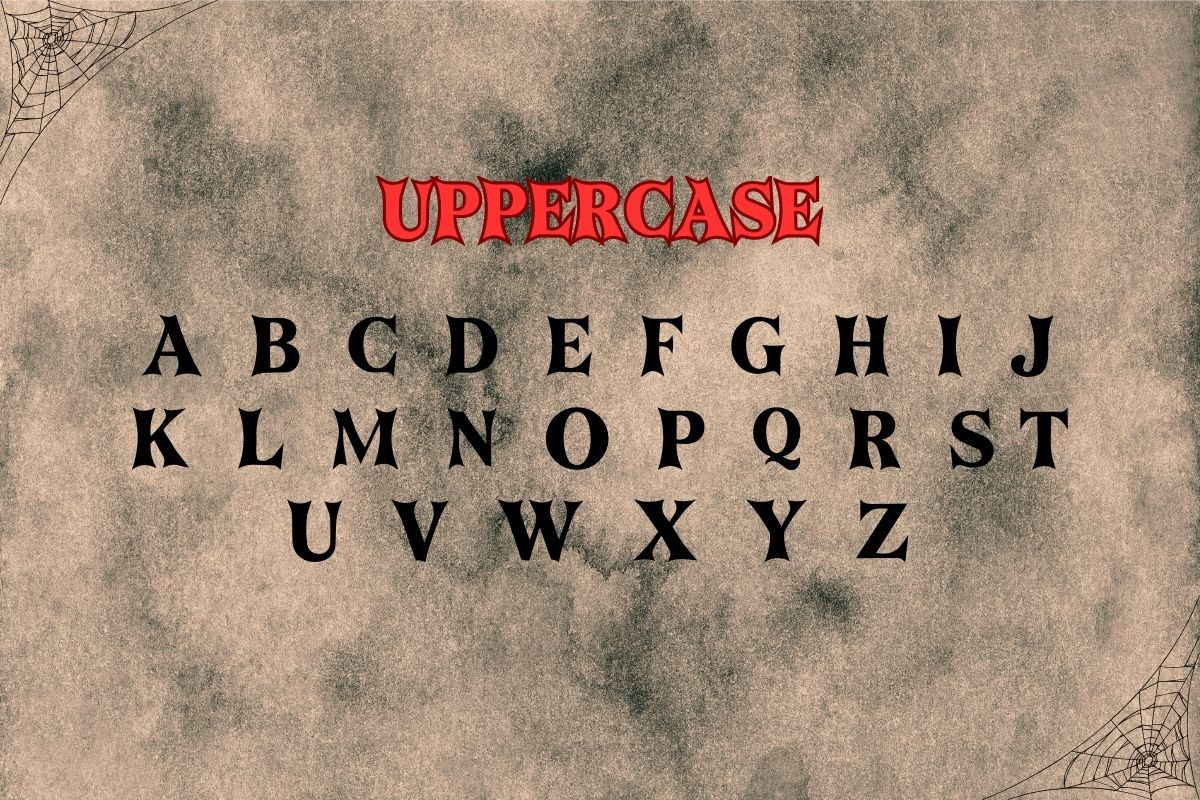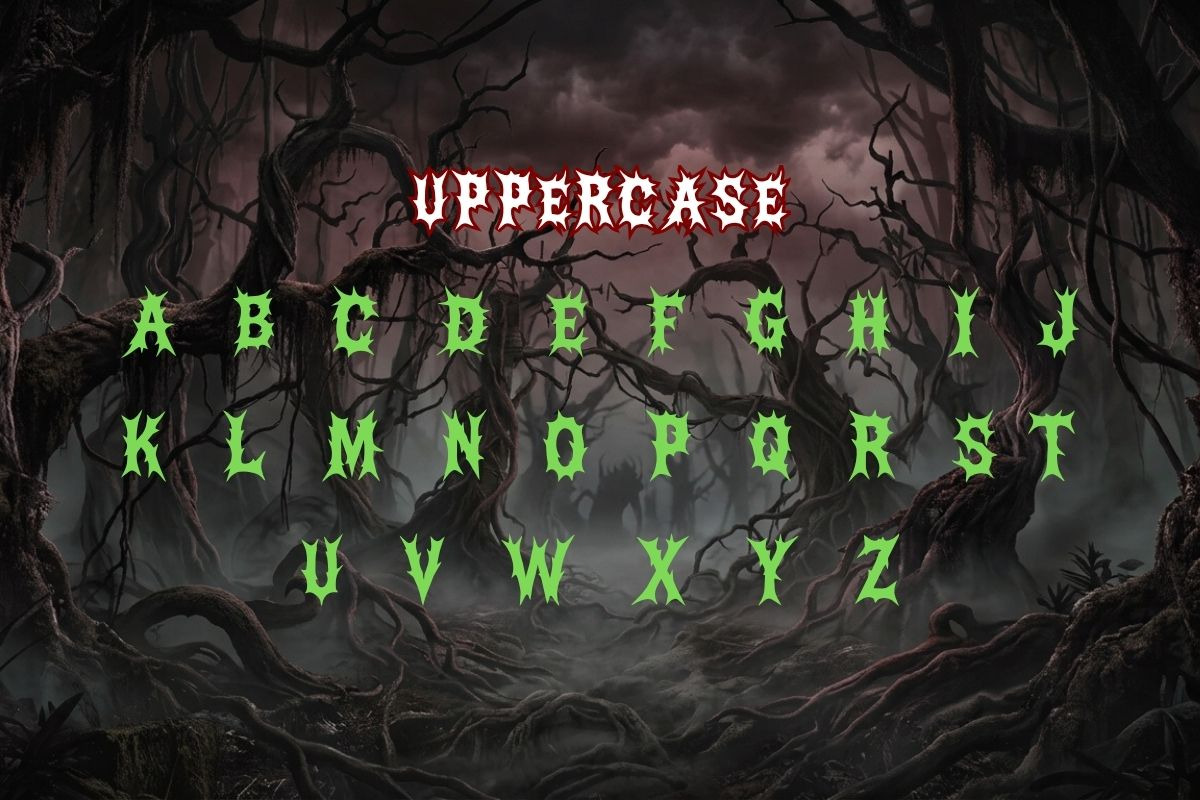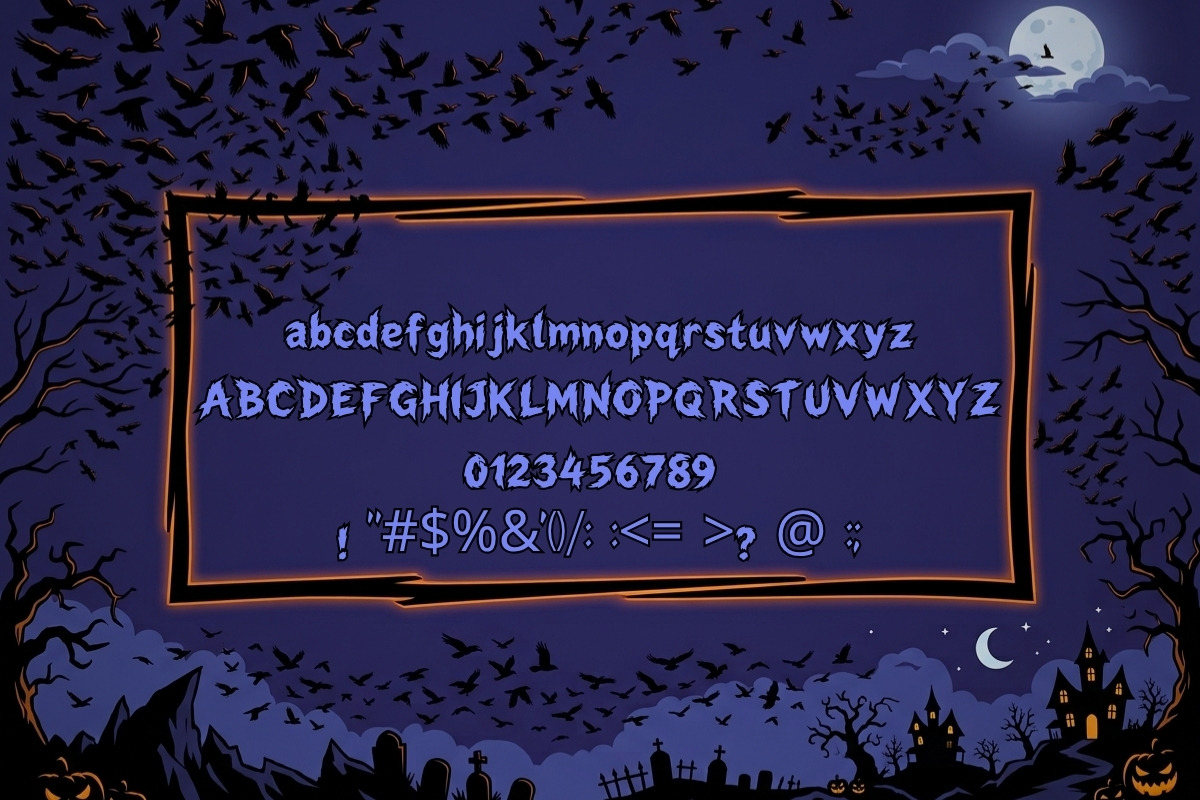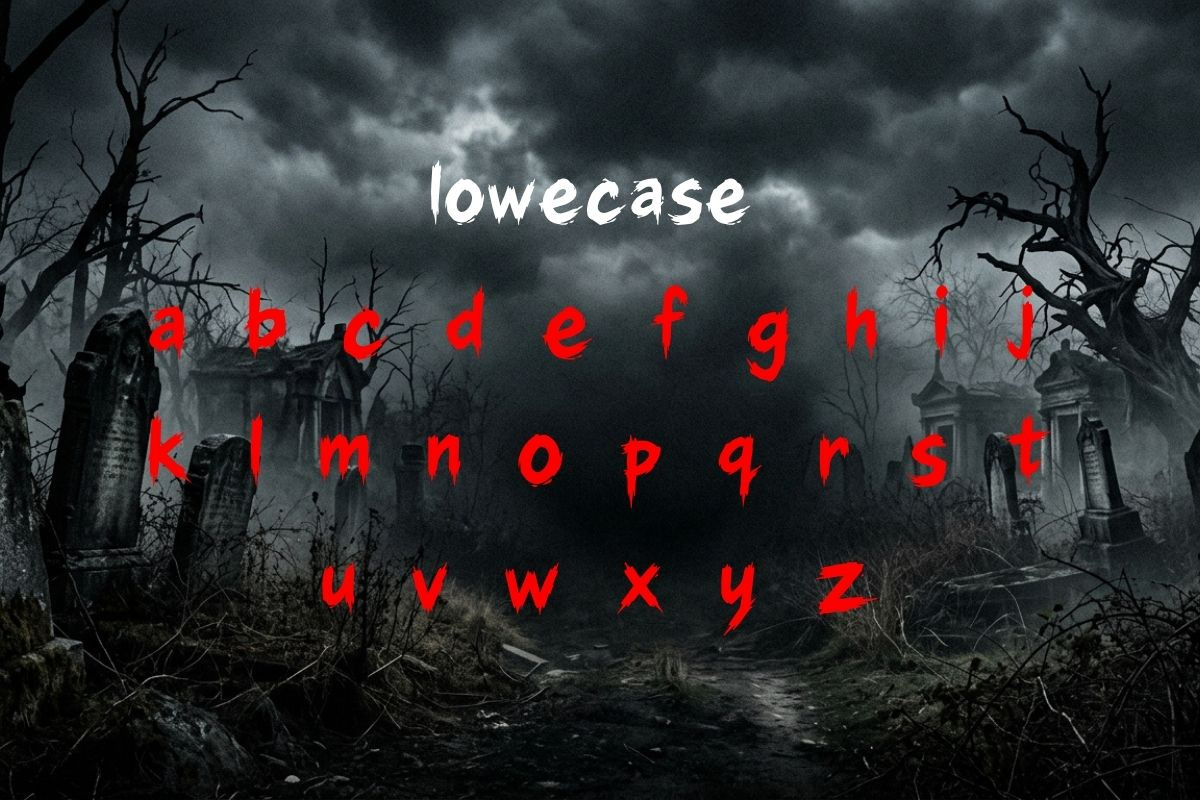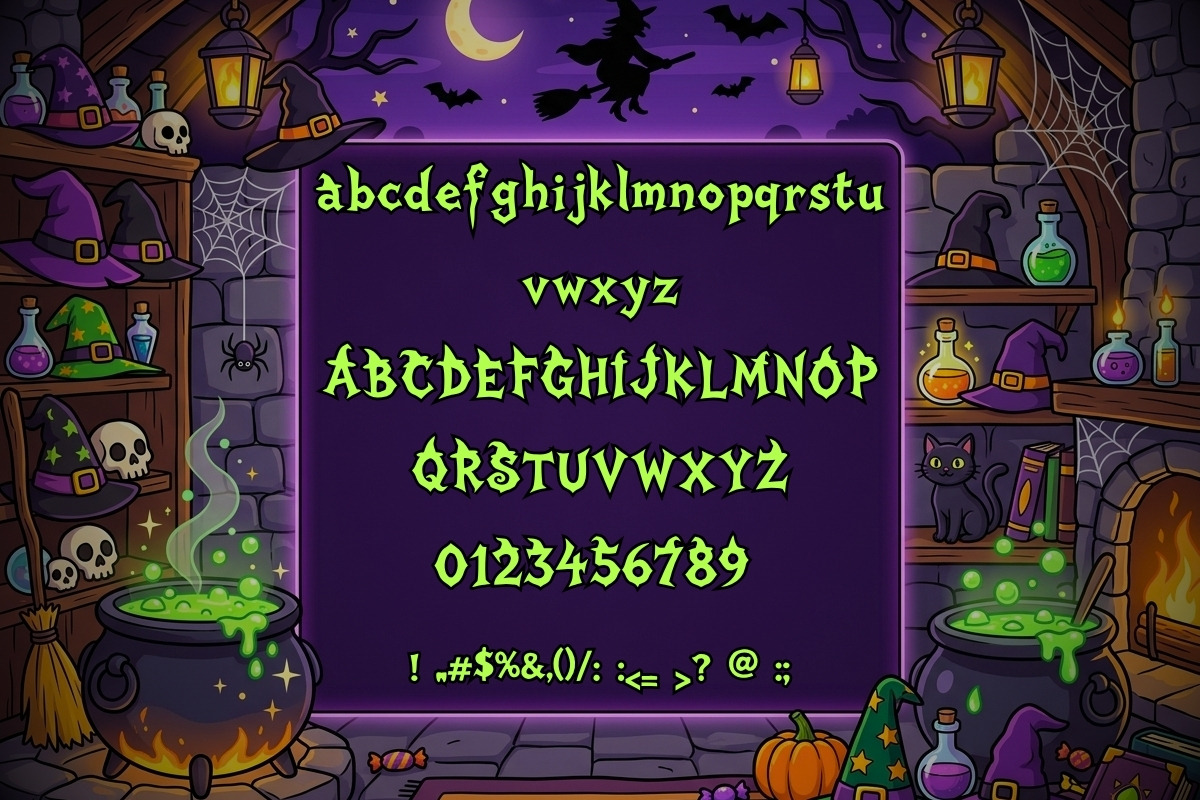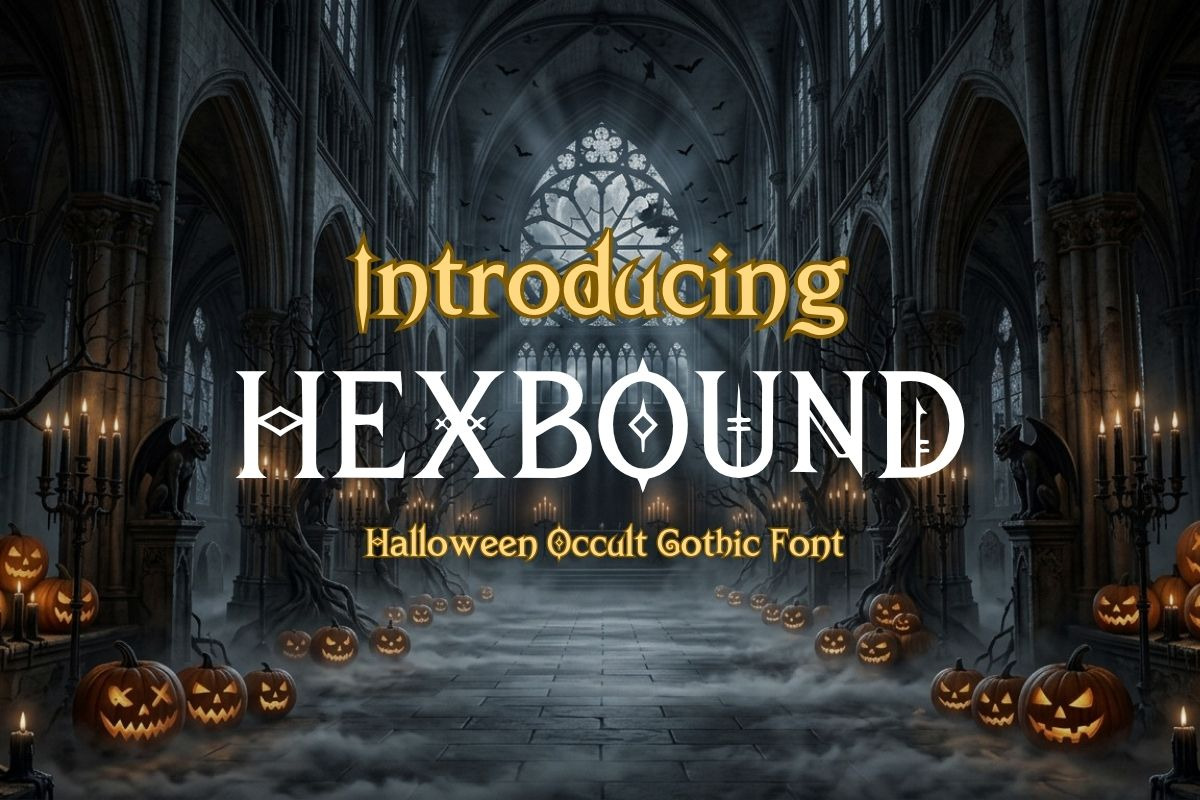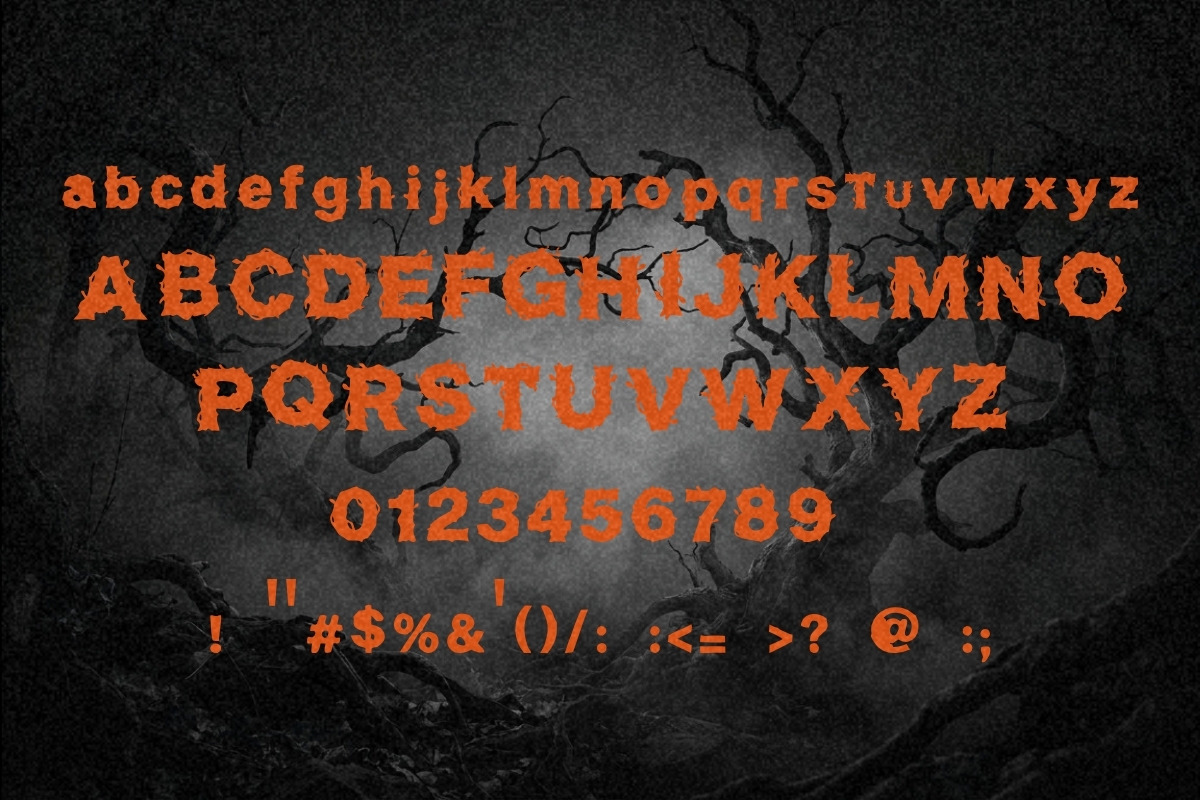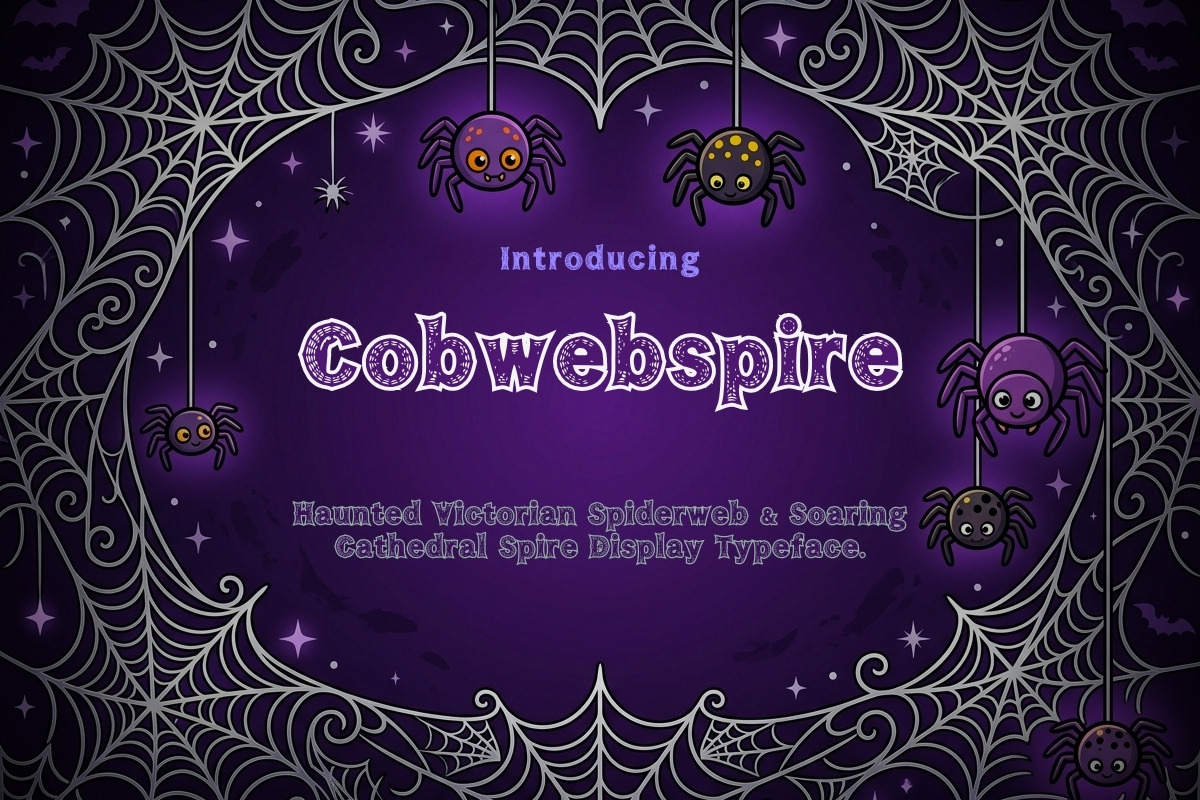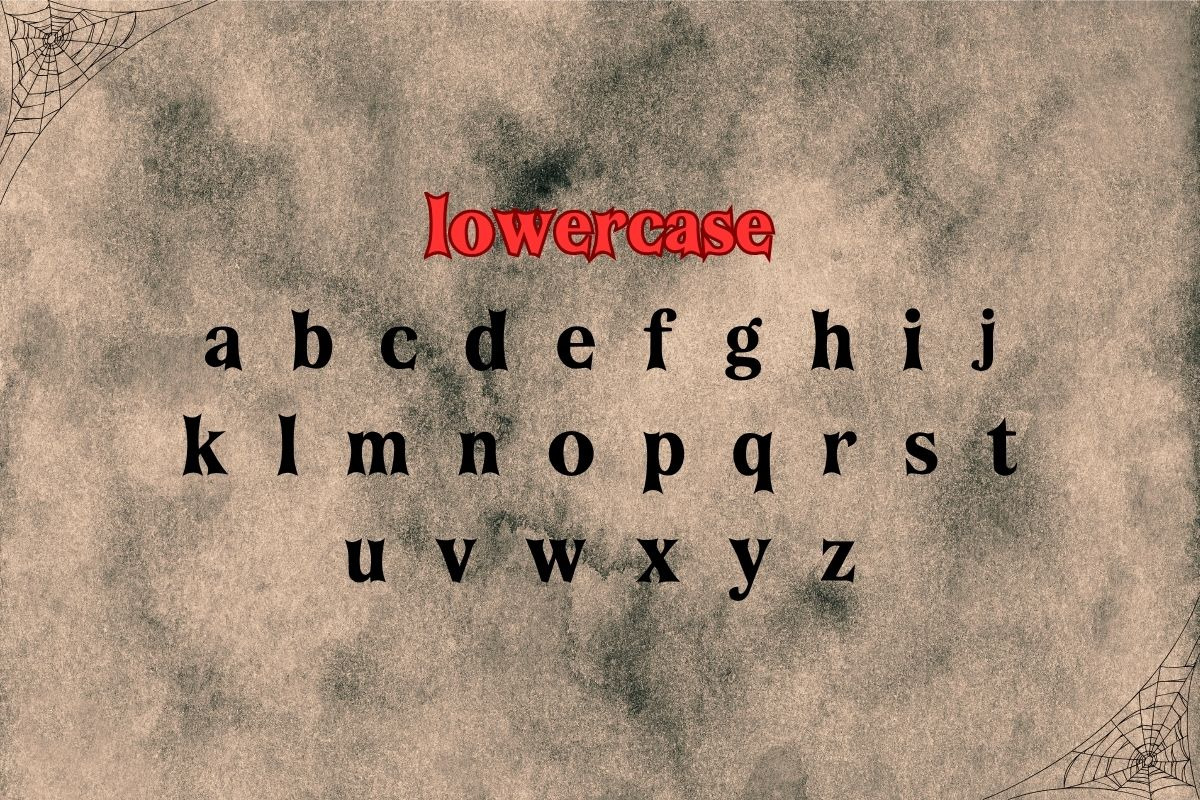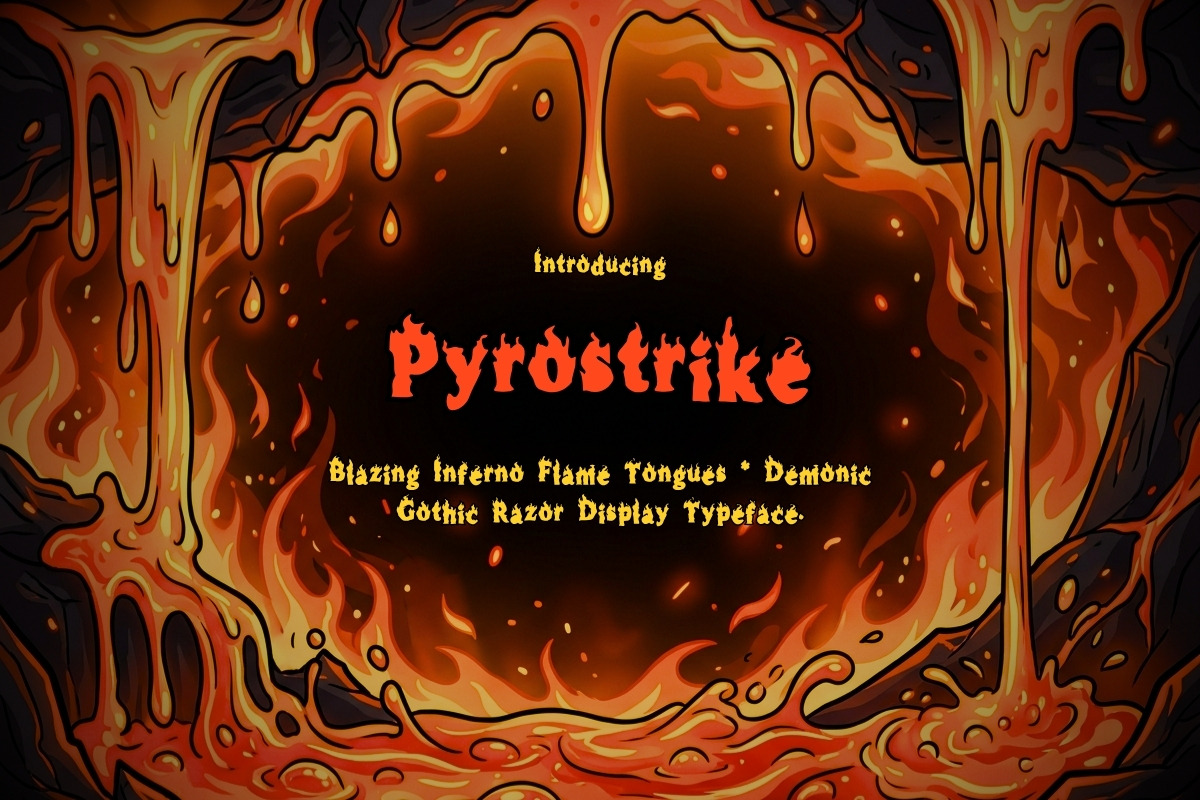
18 Spooky Horror Font Bundle
Prepare for the spooky season with the definitive 18 Spooky Horror Font Bundle — an expansive, mastercrafted arsenal of 18 distinct horror and gothic typefaces designed to dominate every Halloween campaign, horror game, metal album, and dark apparel drop.
Instead of generic novelty fonts that all look alike, this mega bundle delivers 18 completely different horror aesthetics: Victorian spiderwebs, predatory vampire batwings, barbed briars, gnarled haunted timber, demonic talons, melting toxic slime, death metal spikes, dark sorcery runes, and visceral slasher brushstrokes.
Whether you're creating best-selling Halloween merchandise with your Cricut/Silhouette, designing a horror film poster, branding an escape room, or illustrating haunted book covers, this collection gives you the exact typographic weapon you need.
What Makes This 18-Font Bundle Exceptional:
**Unmatched Variety: **18 completely distinct horror aesthetics covering every major spooky theme (Gothic, Slime, Vampire, Metal, Occult, Forest, Slasher, Creature).
**Complete Repertoire: **Full Uppercase & Lowercase sets, complete numbers, and expansive punctuation for versatile headline and subhead typesetting.
Complete Roster of All 18 Fonts Included:
**01. **Cobwebspire Gothic — Eerie Victorian spiderwebs spun across soaring cathedral lancet arches. Perfect for haunted mansions and vintage horror.
**02. **Batclaw Gothic — Aggressive vampire batwings and predatory serrated talons for Dracula lore and midnight apparel.
**03. **Thornbark Gothic — Gnarled ancient woodland tree bark and piercing briar thorns straight from a cursed primeval forest.
**04. **Talonfiend Gothic — Primal creature horror display armed with curved demonic claws, raptor talons, and beast horn crests.
**05. **Hallowspire — Regal dark fantasy and occult gothic blackletter display font with calibrated compact spacing.
**06. **Hellspike Metal Horror — Brutal death metal thorns, barbed wire spikes, and heavy hardcore typography (Regular + OpenType-SVG).
**07. **ToxicDroop — Melting biohazard ooze, dripping slime, and swamp monster horror display font (also doubles as rich melting chocolate/toffee!).
**08. **Grimstroke — Visceral, raw textured slasher brush strokes capturing intense psychological thriller and horror cinema energy.
**09. **Dreadveil — Ominous, shadowy psychological horror display with an eerie, whispering spectral aesthetic.
**10. **Hexbound — Ancient witchcraft runes and dark occult sorcery geometry with sharp angular mystic serifs (Regular + OpenType-SVG).
**11. **Hexthorn — Cursed thorny hex magic and barbed witch briars woven with sinister supernatural power (Regular + OpenType-SVG).
**12. **Ironclad Gothic — Heavy armor-plated medieval iron gothic display with impenetrable brutalist weight (Regular + OpenType-SVG).
**13. **Batwing Gothic — Curved leathery batwing web arches and crypt horror display font.
**14. **Briarfang Gothic — Piercing bramble briar spines and razor predator fangs for wild woodland horror.
**15. **Corvidspire Gothic — Raven roost spires, sharp bird skull bone silhouettes, and dark cemetery monuments.
**16. **Daggerthorn Gothic — Sharpened medieval dagger blades and lethal iron thorn spikes.
**17. **Pyrostrike Gothic — Blazing inferno flame tongues, scorching embers, and demonic fire spines.
**18. **Wraithsmoke Gothic — Ethereal phantom smoke, wispy graveyard mist, and ghostly apparition typography.
Perfect For High-Impact Commercial & Craft Projects:
Halloween party invitations, haunted hayride flyers, cemetery tour banners, and seasonal festival posters
Cricut, Silhouette, and Glowforge vinyl decals, screen-printed horror tees, hoodies, tote bags, and wooden signs
Horror movie title cards, YouTube true-crime / spooky thumbnails, podcast cover art, and Twitch stream overlays
Escape room branding, mystery board game packaging, and dark fantasy tabletop RPG campaign guides
Witchy apothecary potion bottles, poison vials, craft beer seasonal labels, and hot sauce packaging
Heavy metal, deathcore, and goth rock band logos, album gatefold covers, and tour merchandise
Dark romance, thriller, and horror fiction book covers, chapter headings, and monster compendiums
Laser-engraved acrylic props, cemetery gate decor, and custom Halloween pumpkin trail signage